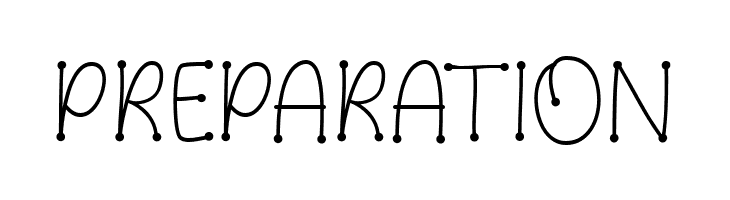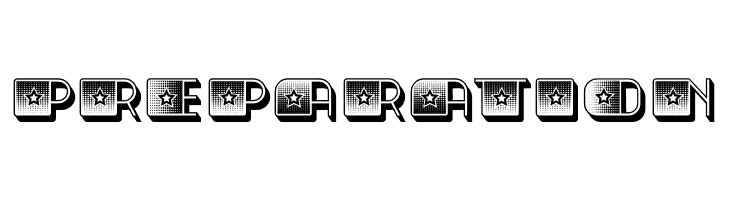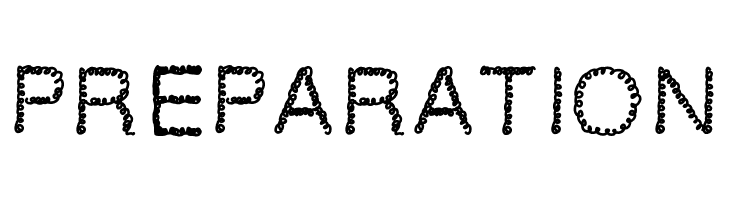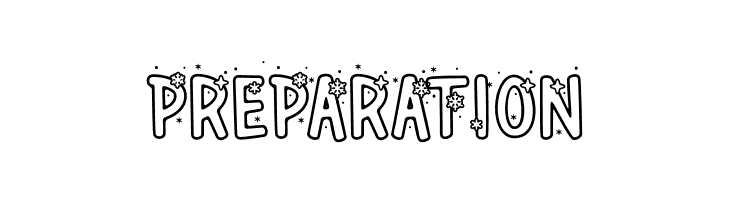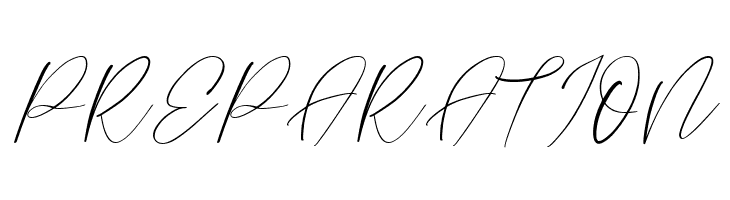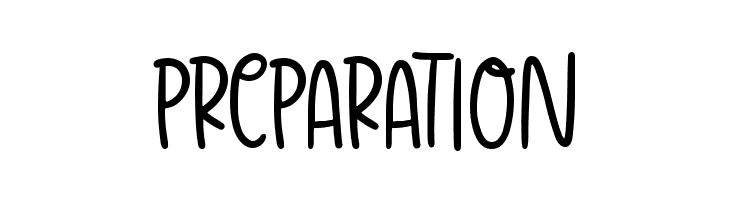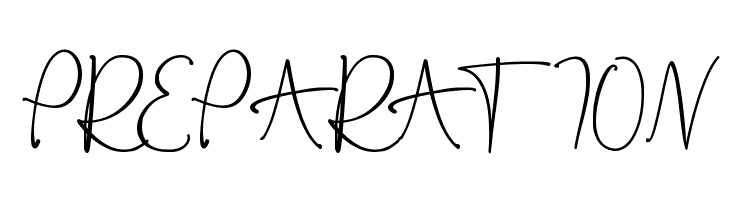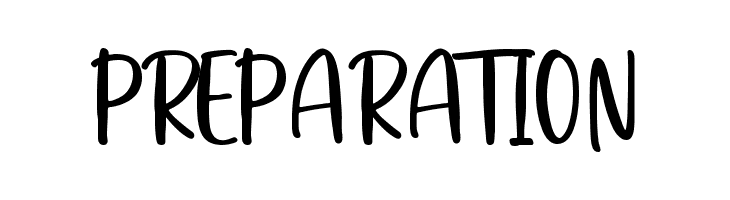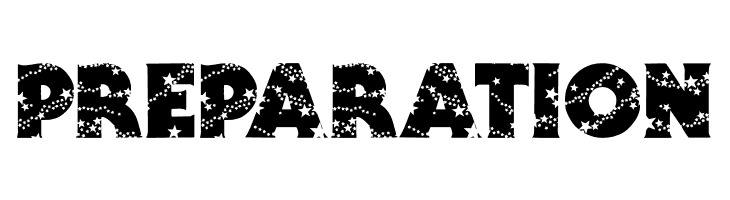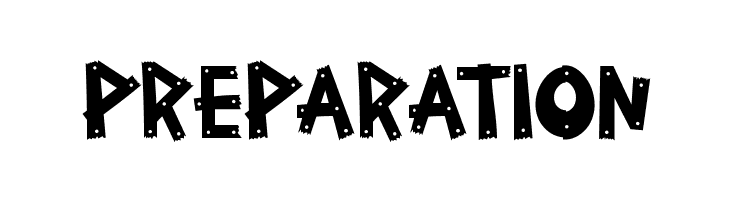
A bold, jagged font with thorn-like edges, perfect for dramatic and intense designs.
A bold, decorative font with snowflake patterns for a festive winter theme.
A playful, icy-themed font with a dripping icicle effect.
A playful and whimsical font with bold, dynamic characters and a unique style.
A playful, casual handwritten font with smooth, flowing lines.
A playful, winter-themed decorative font with snowflakes and stars.
A playful, looped font with a hand-drawn, wire-like appearance.
An ornate, medieval-inspired calligraphic font with elaborate curves and flourishes.
A graceful, cursive script font with elegant loops and swashes.
A bold, decorative font with star patterns and dotted textures.
An artistic font with swirling, entangled lines creating a whimsical and decorative style.
An intricate, decorative font with swirling embellishments and artistic flair.
A bold, decorative font with butterfly motifs in uppercase and numbers.
A decorative font with intricate butterfly and floral patterns in uppercase letters and numbers.
A playful handwritten font with a casual elegance and modern appeal.
Playful handwritten script font.
A playful, handwritten font with tall, narrow letters and rounded edges.
A bold, decorative script font with dynamic, brush-like strokes.
A bold, playful font with a woodcut, handcrafted appearance.
A playful, dot-adorned font with a whimsical, hand-drawn style.
A handcrafted, woodblock-inspired font with intricate line work and a rustic aesthetic.
Bold, blocky characters enclosed in square outlines with a playful, stencil-like appearance.
A playful, bold font with a mix of solid and outlined characters.
A bold, playful font with exaggerated, hand-drawn characters.
A bold, playful font with exaggerated, elongated forms and irregular shapes.
A bold, angular font with a woodcut-inspired design.
A bold, angular font with sharp edges and high contrast, ideal for impactful designs.